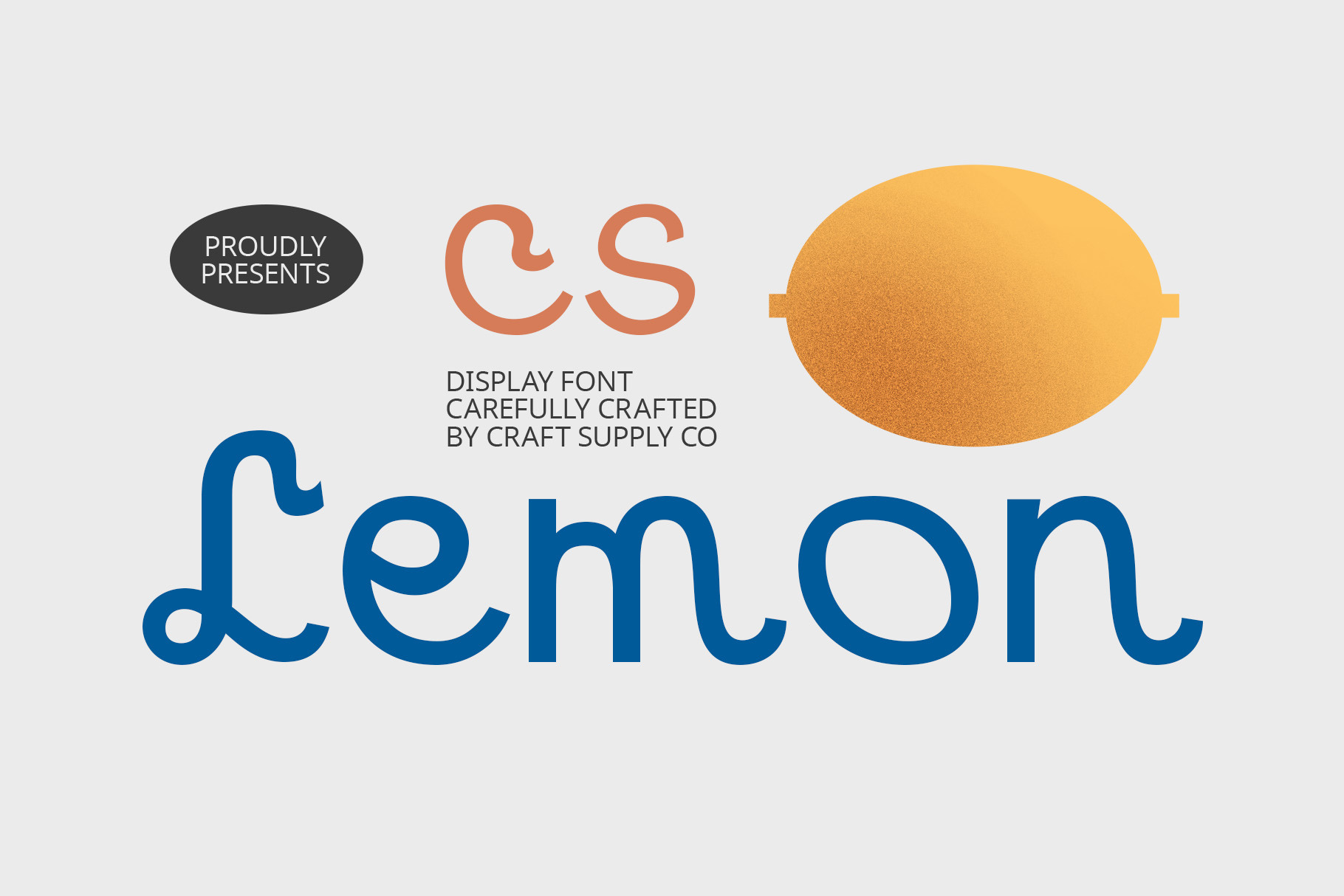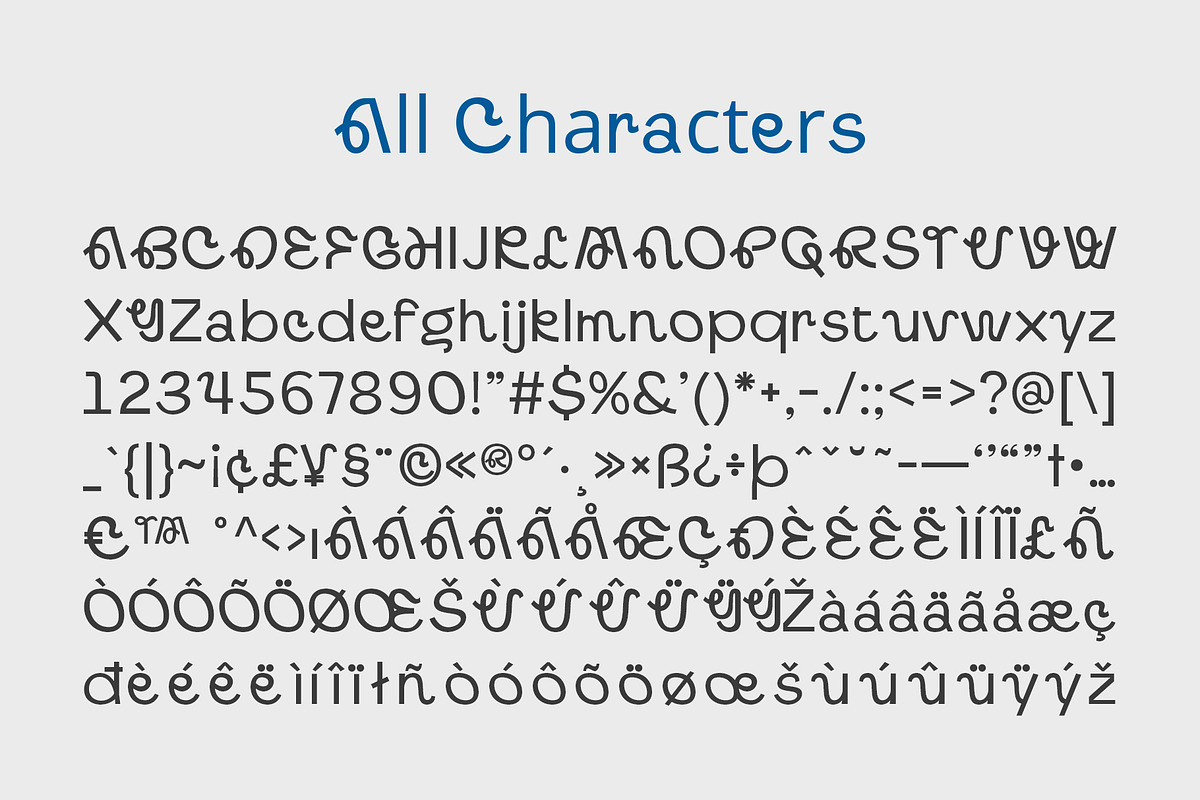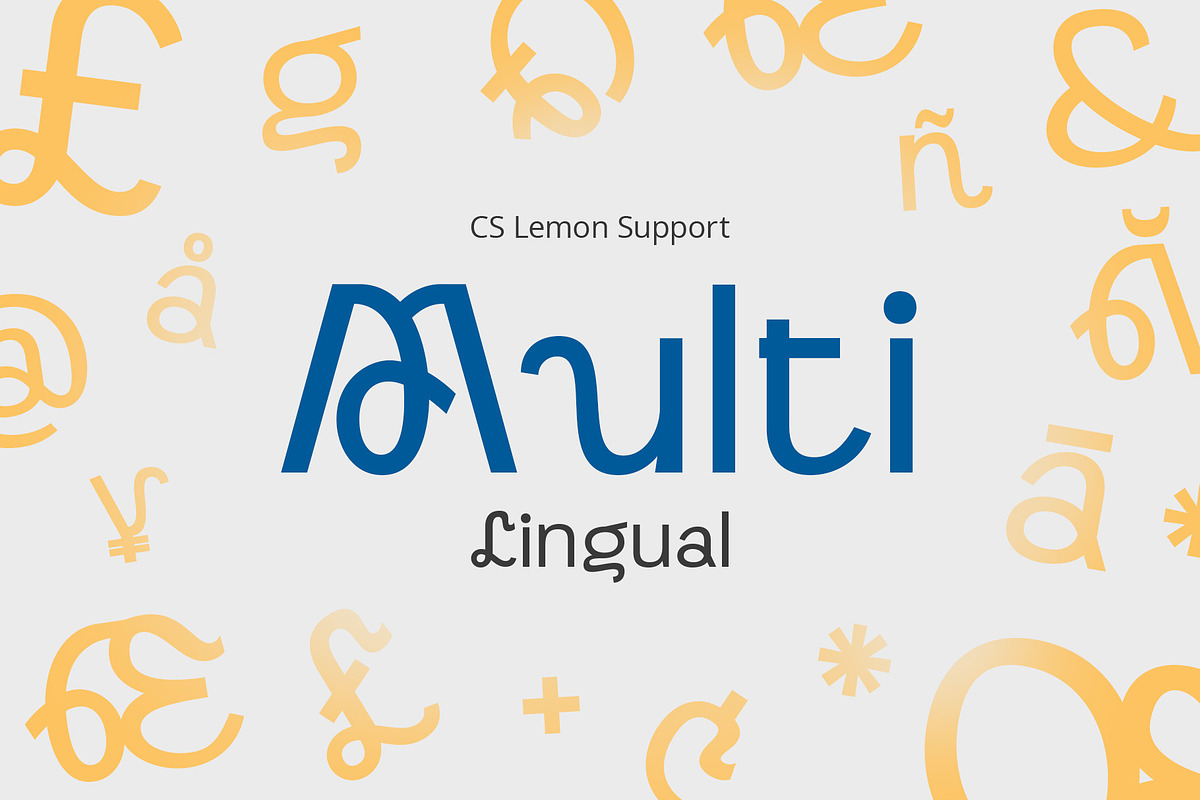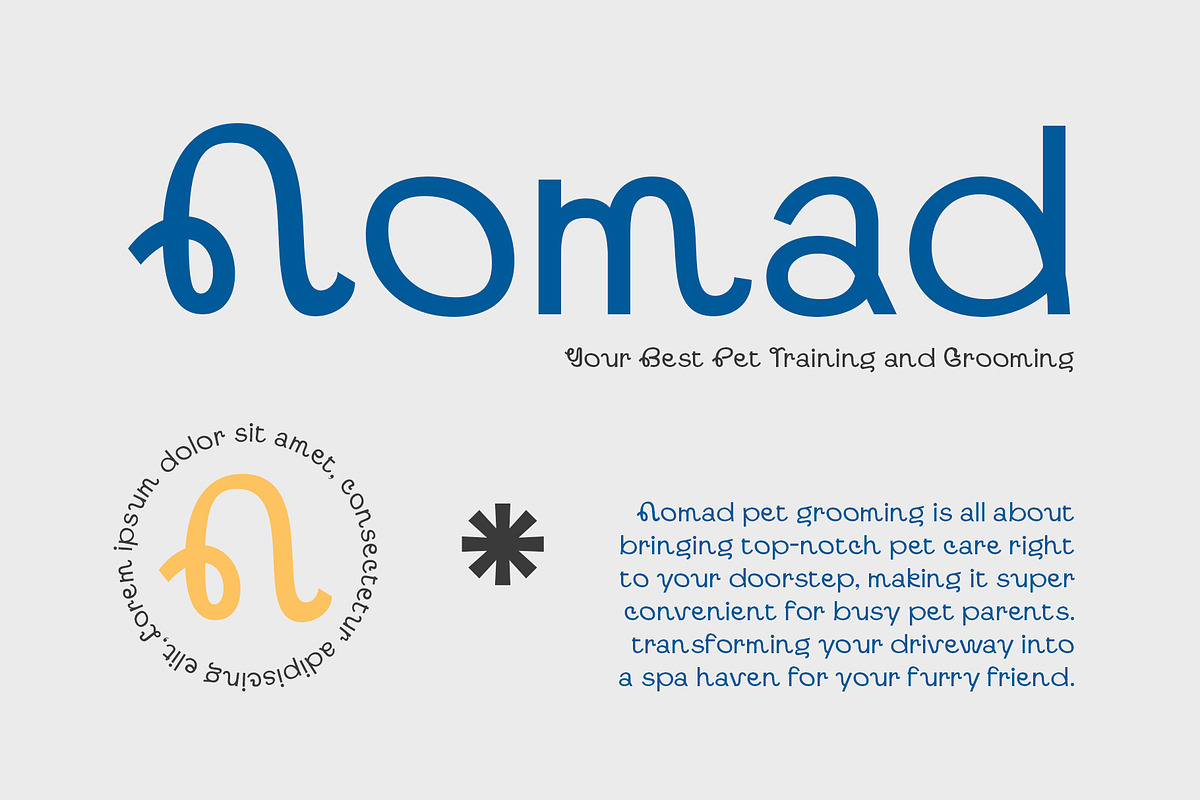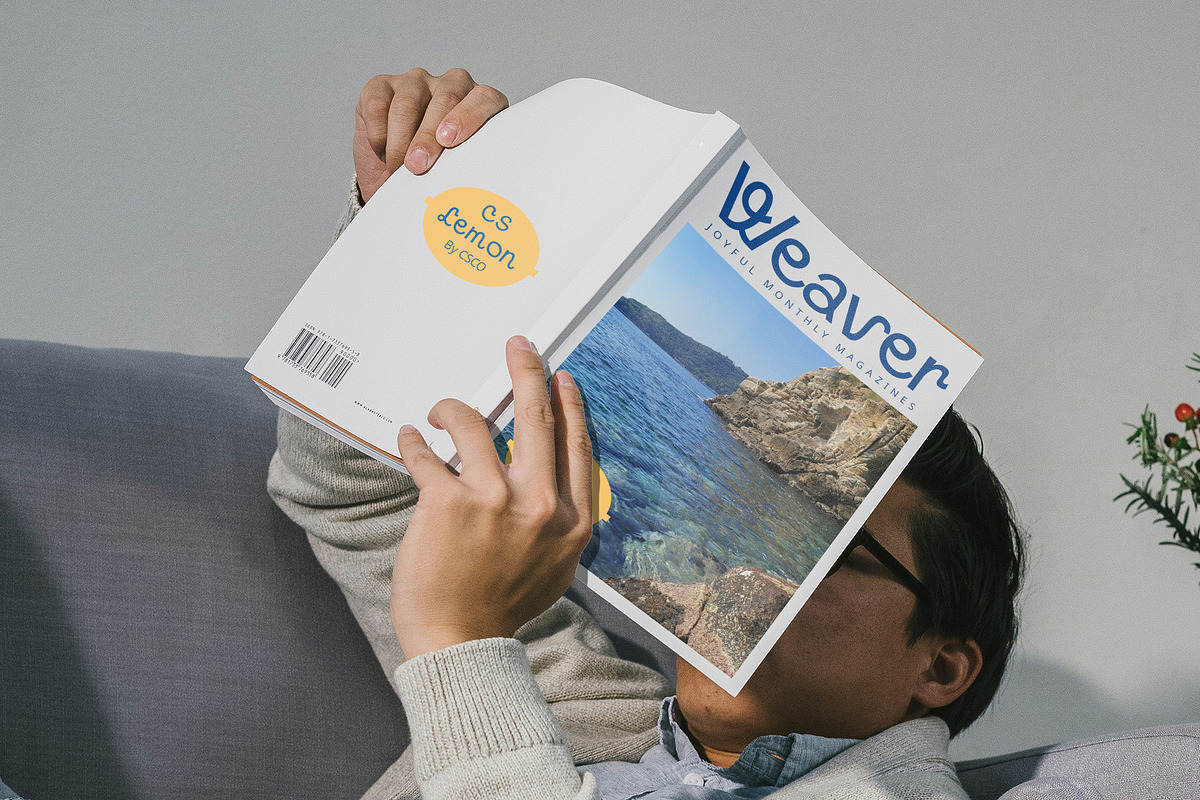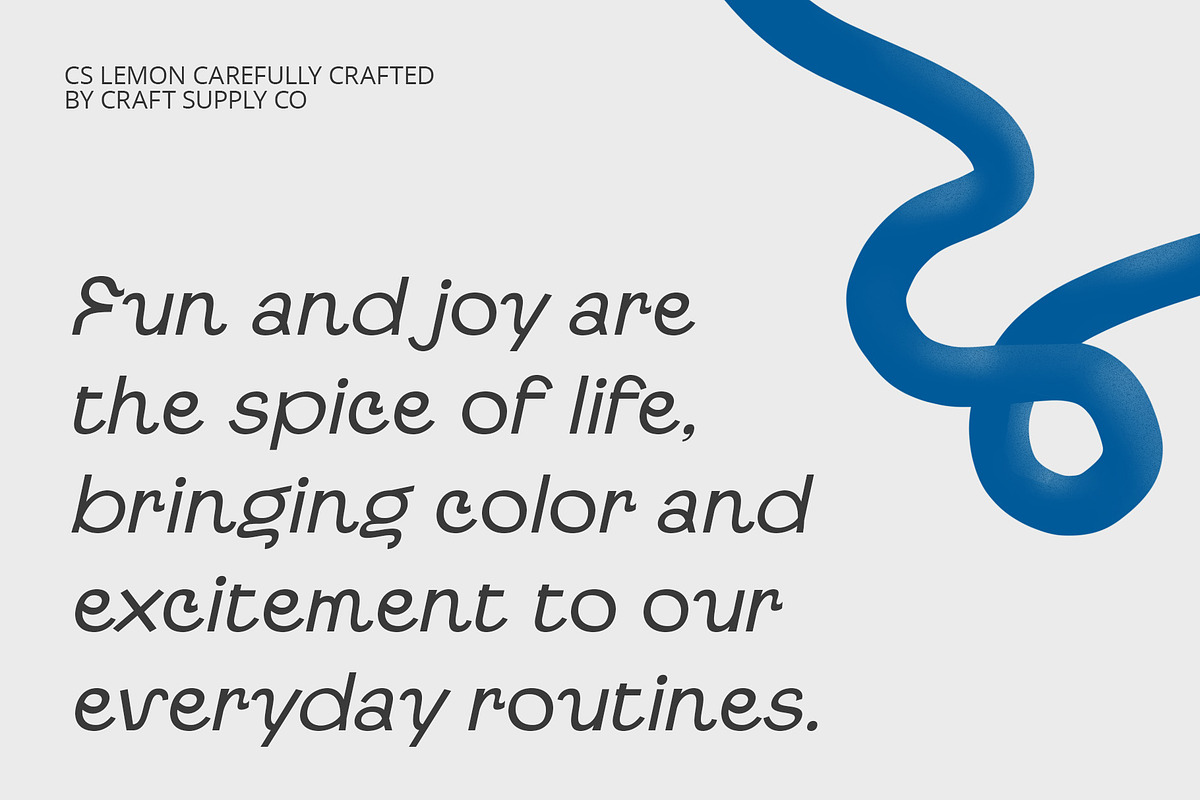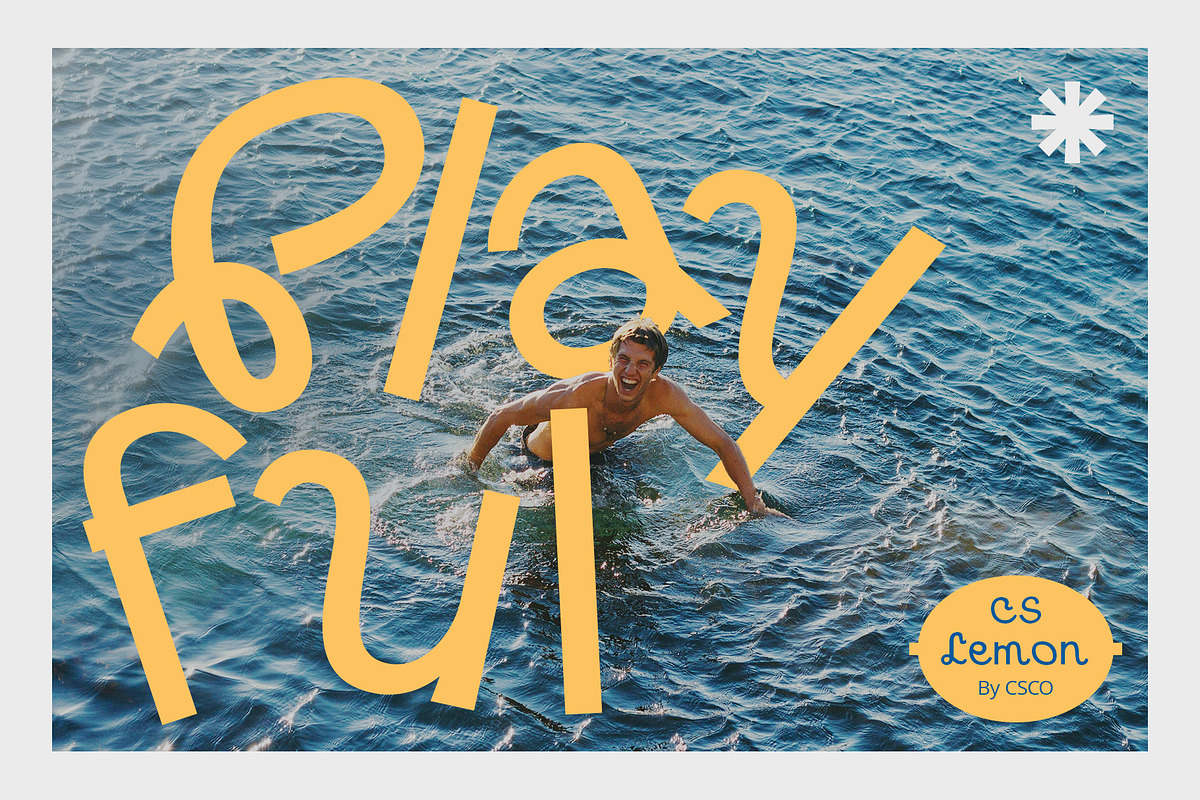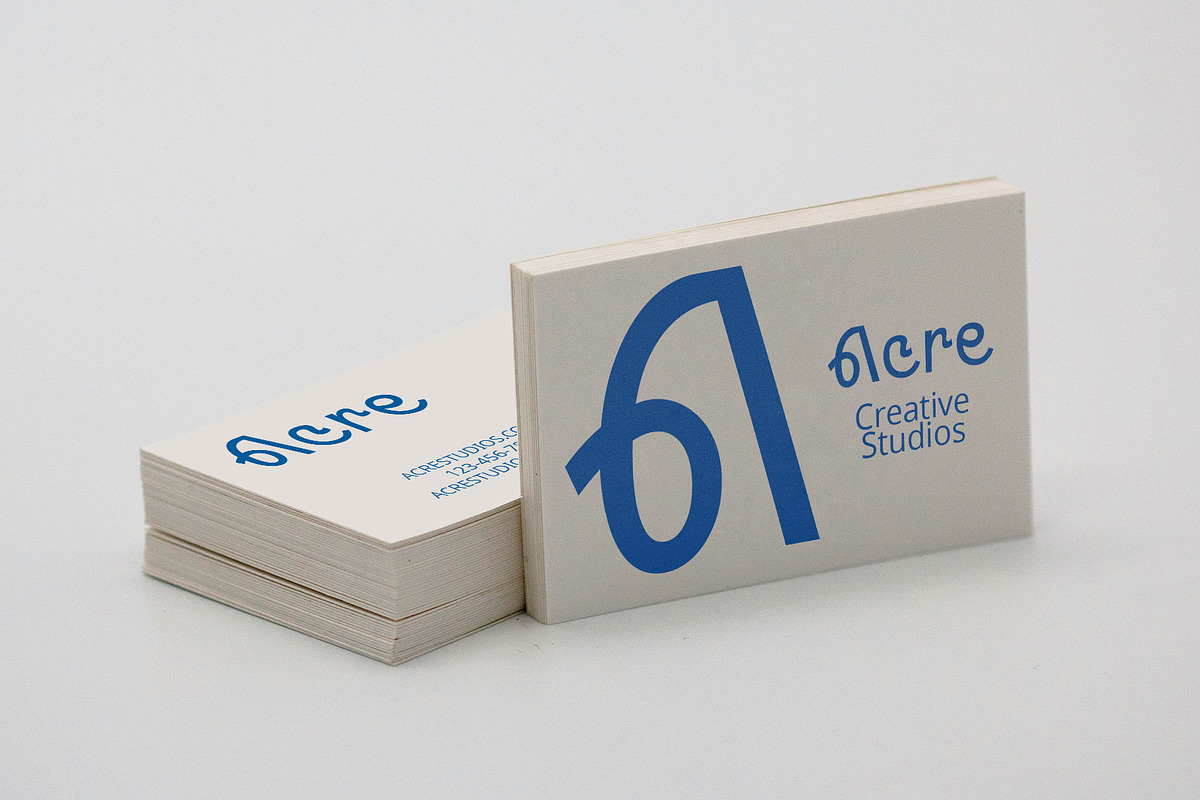
CS Lemon – Display Font
CS Lemon – Display Font: Playful Charm with Whimsical Delight
Playful Display Font with Rounded Edges CS Lemon is a playful display font characterized by its rounded edges and whimsical letterforms. This font exudes a sense of fun and cheerfulness, making it perfect for designs that aim to capture a lighthearted and captivating vibe.
Charming and Cute Appearance The charming and cute design of CS Lemon makes it an ideal choice for children’s books, playful branding, and creative projects. Its delightful and inviting look ensures that your designs stand out with a unique and engaging touch.
Whimsical Letterforms for Fun Designs CS Lemon features whimsical letterforms that add a sense of joy and playfulness to any project. This design element enhances the font’s cheerful aesthetic, making it perfect for applications that require a fun and friendly feel.
Ideal for Children’s Books and Playful Branding Whether you’re working on children’s literature, creating playful brand identities, or embarking on creative ventures, CS Lemon provides a delightful and cheerful addition to your designs. Its playful charm ensures your projects will capture attention and bring smiles.